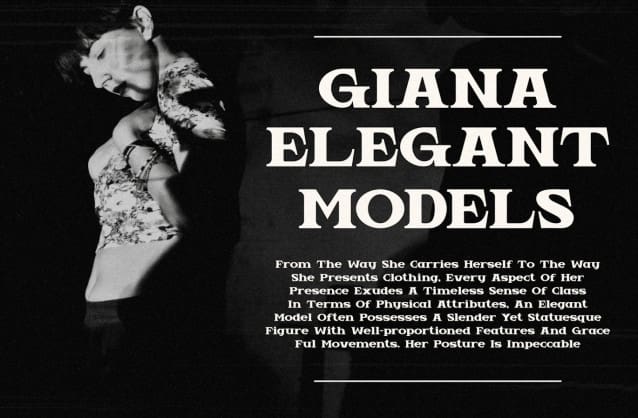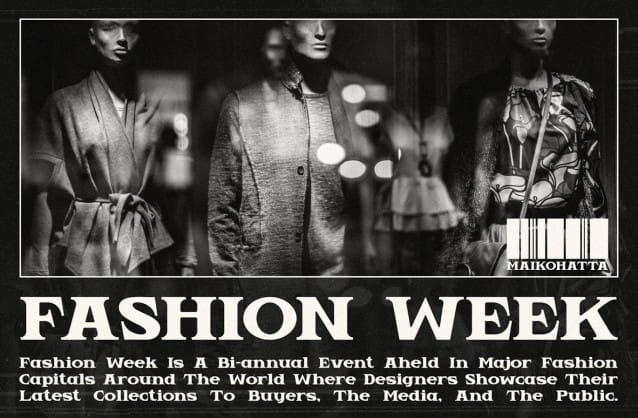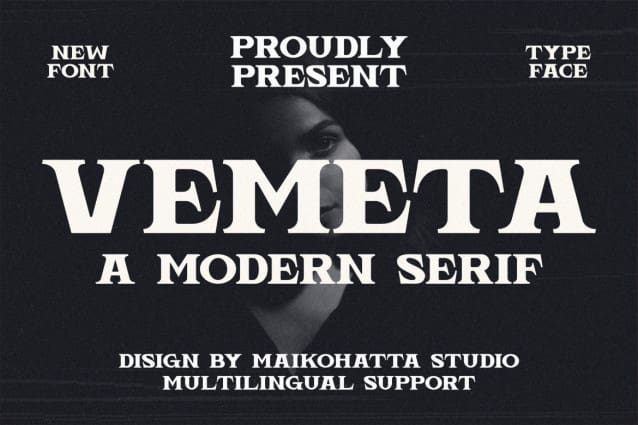
Vemeta Font
Vemeta Font – Modern Serif Font.This font has a balanced proportion of stroke thickness and thinness, creating attractive and easy-to-read visuals. This modern serif style is often characterized by a bold distinction between thick and thin lines, providing an understated touch while remaining remarkable